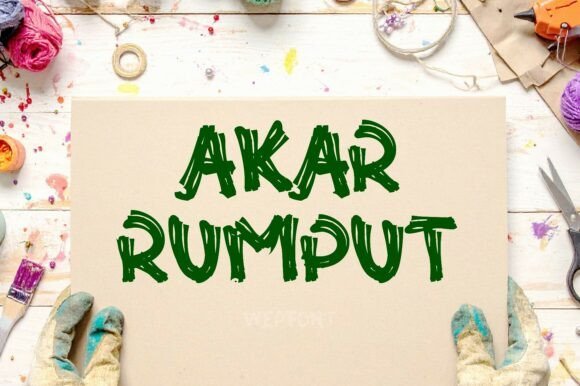
The Unbridled Energy of Handwritten Type: Introducing Akar Rumput Font
You know that moment when you’re brainstorming ideas for a new project and suddenly, a spark of creativity ignites? The words start flowing, and you’re swept up in a wave of inspiration. That’s exactly what the Akar Rumput Font is designed to evoke – a raw, unbridled energy that refuses to be tamed.
This distinctive, handwritten display font is more than just a typeface – it’s a statement piece that adds a touch of authenticity and personality to any design. Its unique, ink-brushed texture and irregular lines give it a bold, expressive quality that’s impossible to ignore. Whether you’re working on a grassroots campaign, an indie film, or a DIY project, the Akar Rumput Font is the perfect tool to convey your message with urgency, creativity, and a sense of rebellion.
Akar Rumput Font Key Features
- Font Family: Akar Rumput, a unique and modern font designed to evoke the natural beauty of grass and plants.
- Unique Characteristics: Features a distinctive, hand-drawn style with organic elements, giving it a natural and earthy feel.
Akar Rumput Font Review
Akar Rumput Font is a unique and quirky font that caught my attention. I’ve had the chance to work with it, and here’s my honest review.
- The font’s organic and natural feel is perfect for projects that require a touch of whimsy.
- The variations in letterforms create a sense of movement and fluidity, making it engaging to read.
- The font’s high contrast between thick and thin lines adds depth and visual interest.
- The font may not be suitable for body text due to its irregularity, which can make it difficult to read at larger sizes.
- The font’s complexity may make it challenging to pair with other fonts, especially those with similar organic feels.
- The font’s limited language support may be a concern for projects that require multilingual support.
Akar Rumput Font is a great choice for projects that require a unique and eye-catching look. While it may have its limitations, it’s perfect for titles, headings, and other display typography. If you’re looking for a font that will add a touch of personality to your design, Akar Rumput is definitely worth considering.
Akar Rumput Font is a unique and elegant font that works well for:
- Editorial and magazine designs
For optimal results, use Akar Rumput Font in conjunction with high-quality images and carefully selected colors.